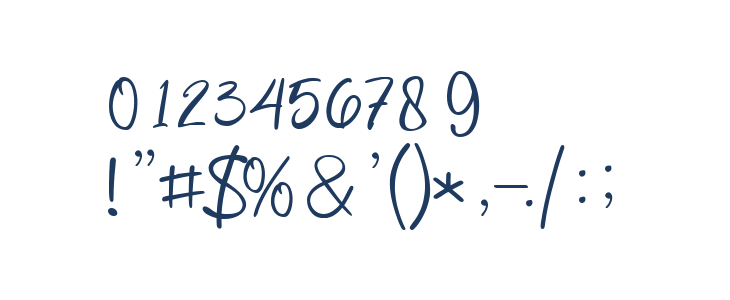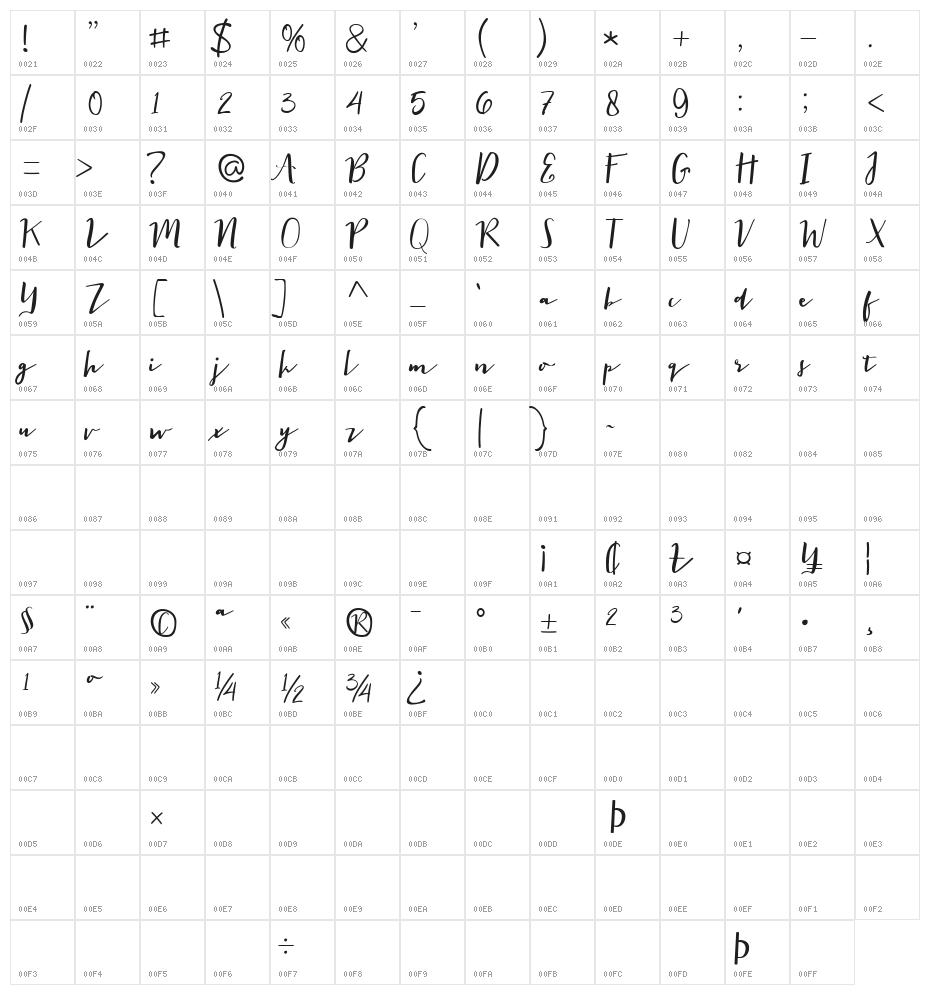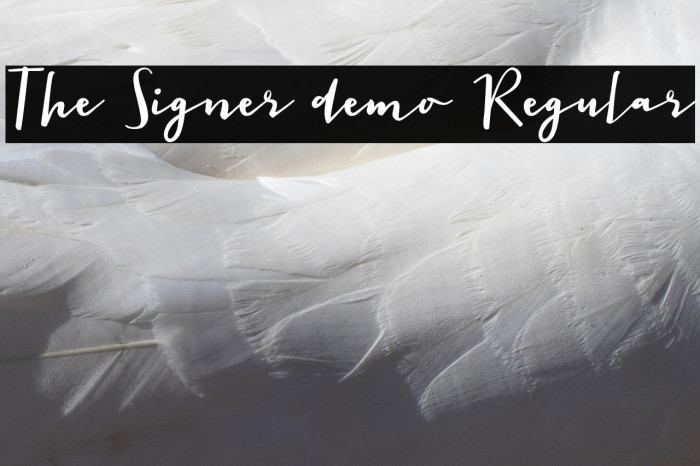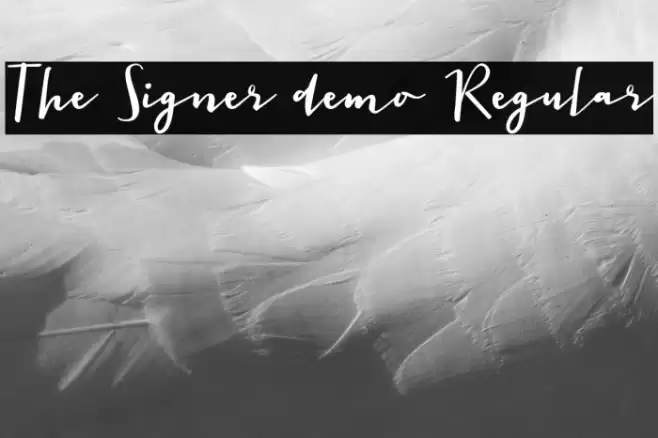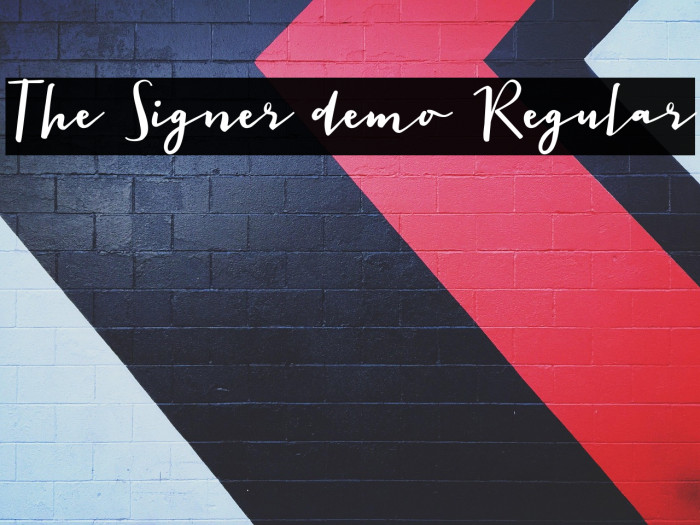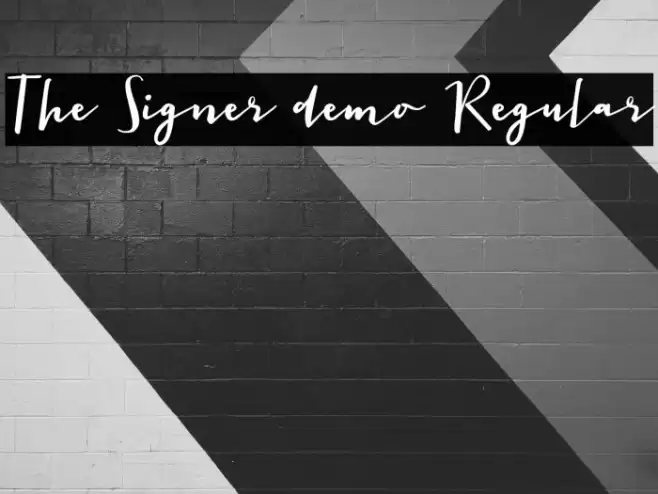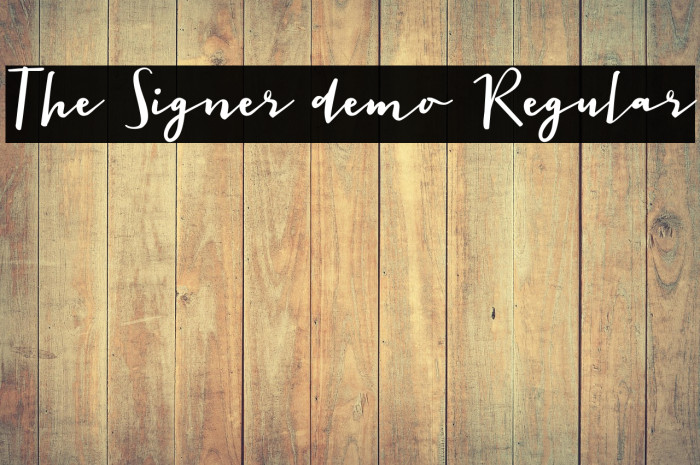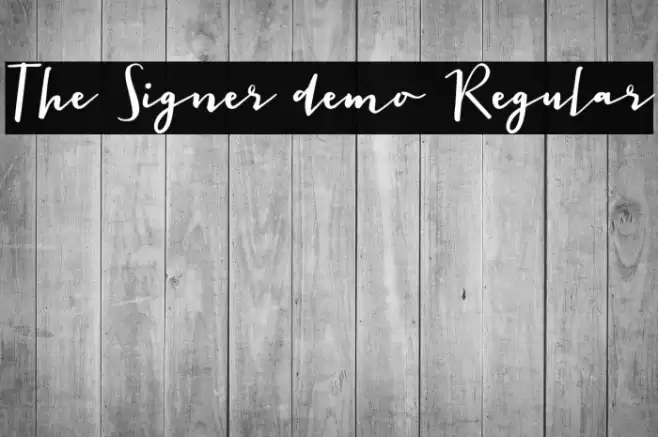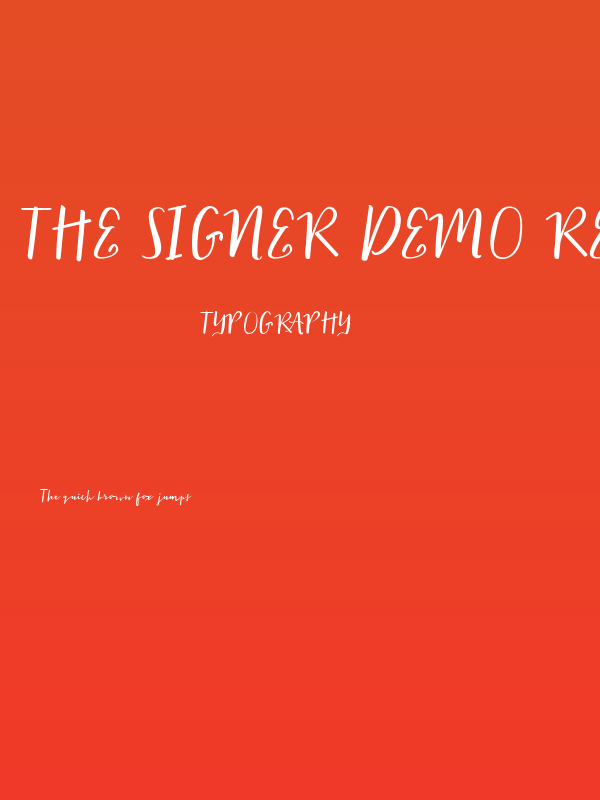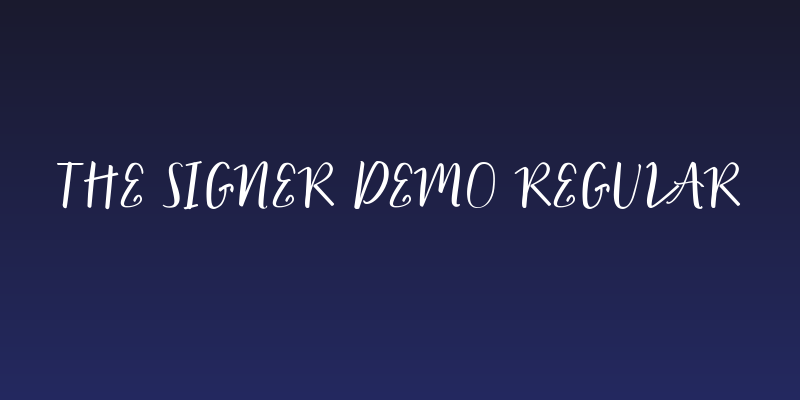
The Signer demo Regular Font
The Signer demo Regular Description
This font features a dynamic and expressive handwritten style, characterized by its fluid and cursive letterforms. The uppercase letters are bold and slightly slanted, giving a sense of movement and elegance. The lowercase letters maintain a consistent flow, with some letters extending below the baseline, adding to its artistic flair. The numerals are clear and legible, with a slight slant that matches the overall style. Special characters are creatively designed, maintaining the font's unique personality. This font is perfect for projects that require a personal and artistic touch, such as invitations, greeting cards, and branding materials.